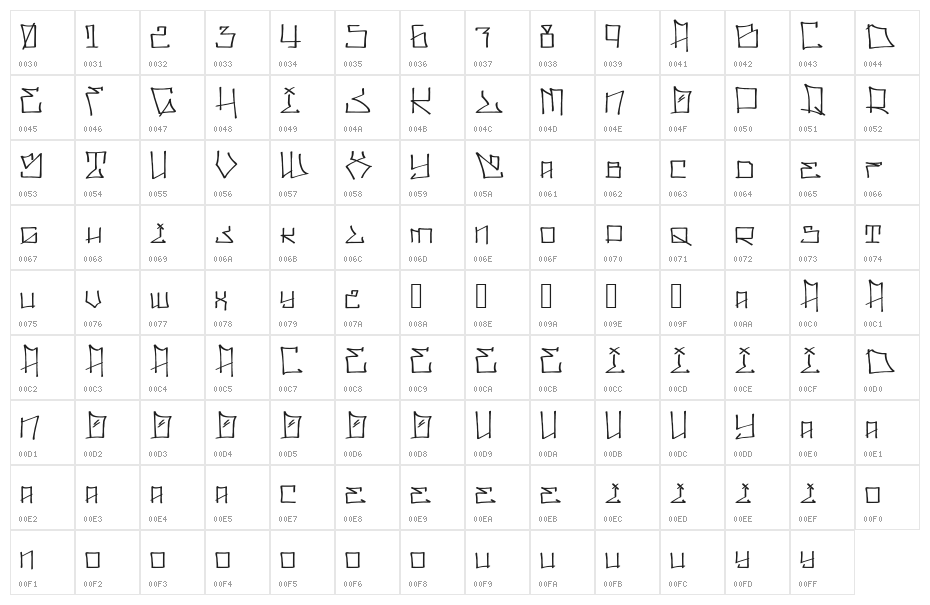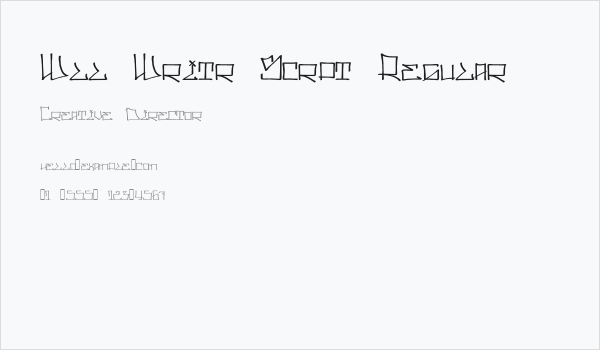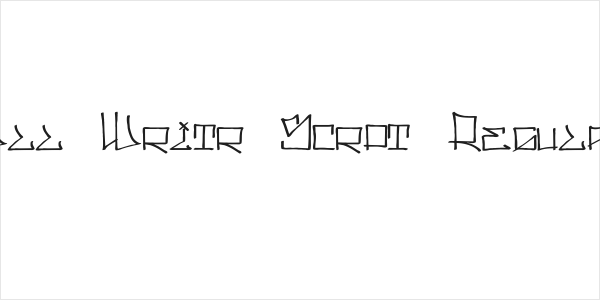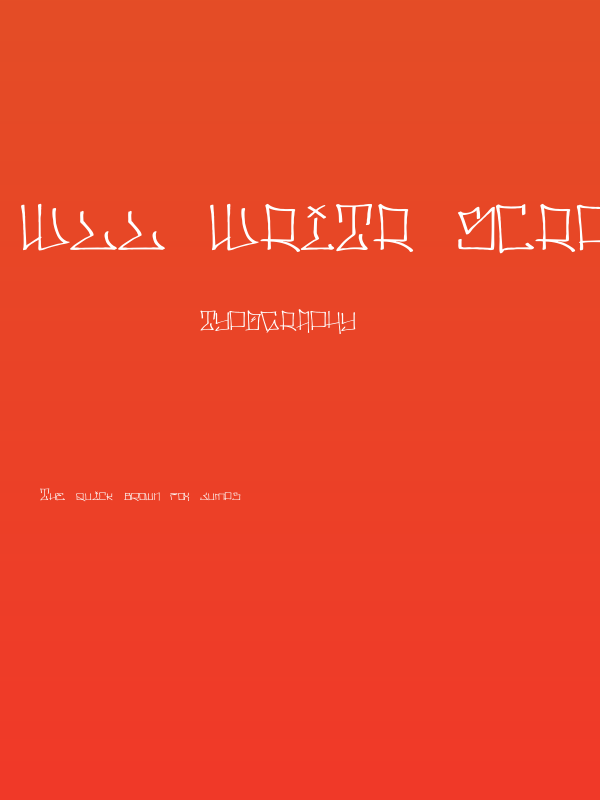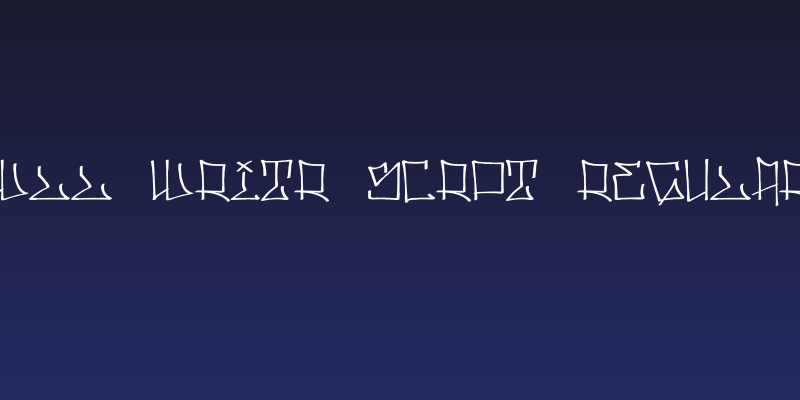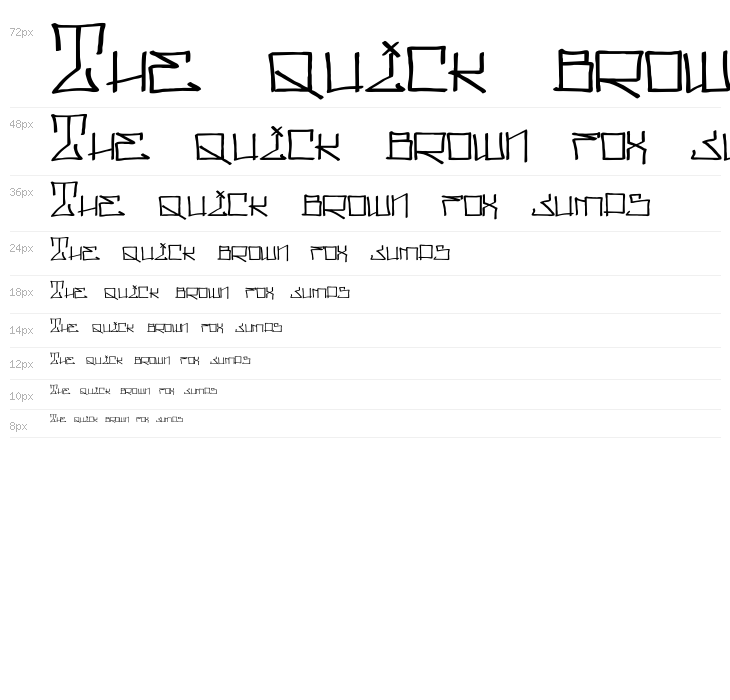
Wll Writr Scrpt Regular Font
Wll Writr Scrpt Regular Description
This font features a unique, hand-drawn style that resembles a blend of geometric shapes and abstract lines. Each character is crafted with a distinct angularity, giving it a modern and artistic appearance. The uppercase and lowercase letters maintain a consistent design, with sharp edges and a slightly irregular form that adds to its charm. Numbers and special characters follow the same stylistic approach, ensuring a cohesive look across all elements. The overall design is bold and eye-catching, making it suitable for creative projects that require a standout typeface.
| Proposed Projects | Ideal for artistic projects, branding, posters, and any design work that requires a distinctive and creative typeface. |